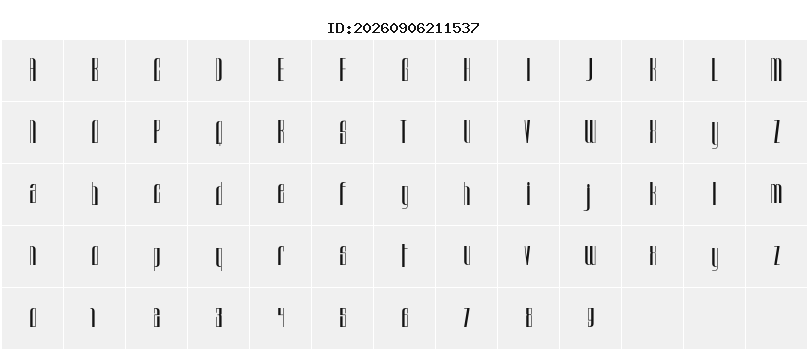
• Font Name: Urkelian
• Font ID: RayLarabie: Urkelian: 1998
• Full Font Name: Urkelian
• Designer: Ray Larabie
• Manufacturer: Ray Larabie
About Urkelian.ttf
Urkelian.ttf is a modern, elegant sans-serif font designed for ultimate readability and visual harmony. Perfect for branding, headlines, web design, and print materials.